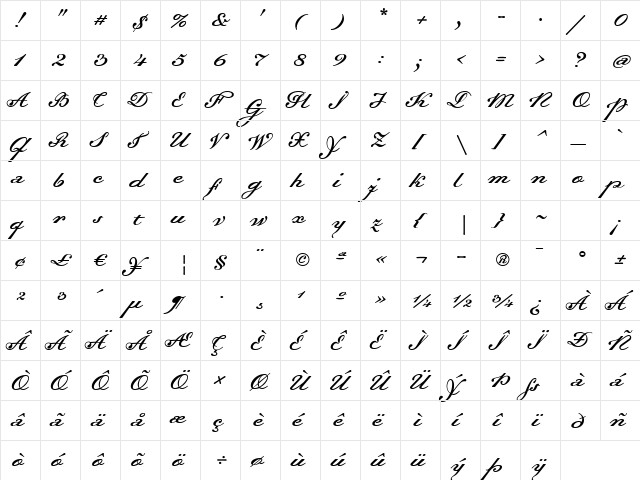
Dalliance Script
| Style | Script |
Design Context for Dalliance Typeface
Dalliance flows with the natural rhythm of handwritten lettering, making it ideal for designs that call for warmth and personal expression.
Font Pairing: Combine Dalliance with a simple geometric sans for maximum contrast — the tension between flowing curves and clean structure is a classic typographic pairing.
Pro Tip: Use Dalliance for short runs of text — names, titles, or taglines. Extended body copy in script faces tires the eye quickly.